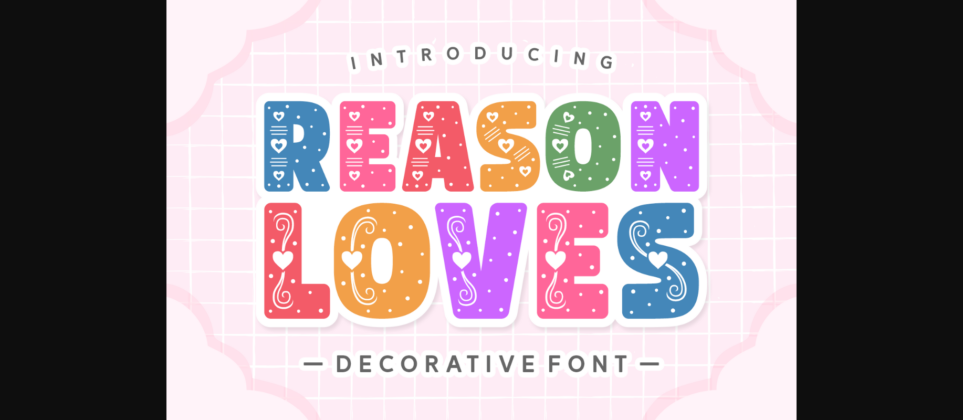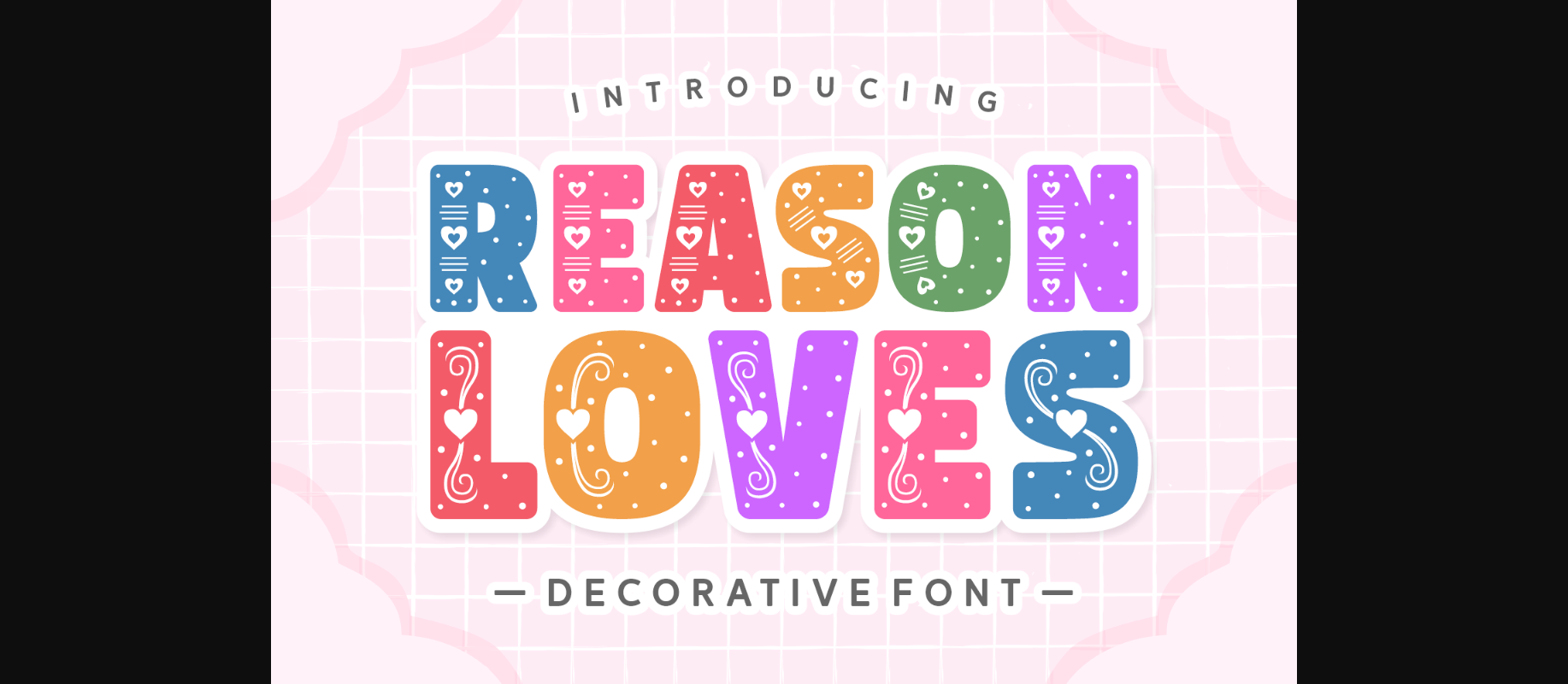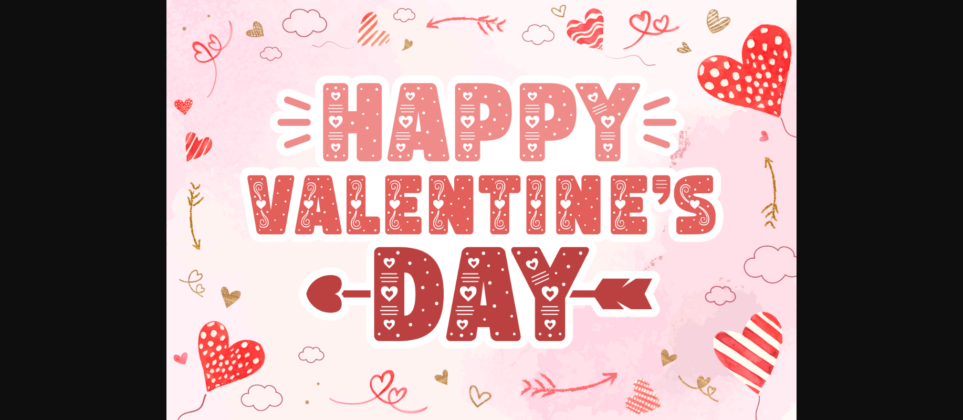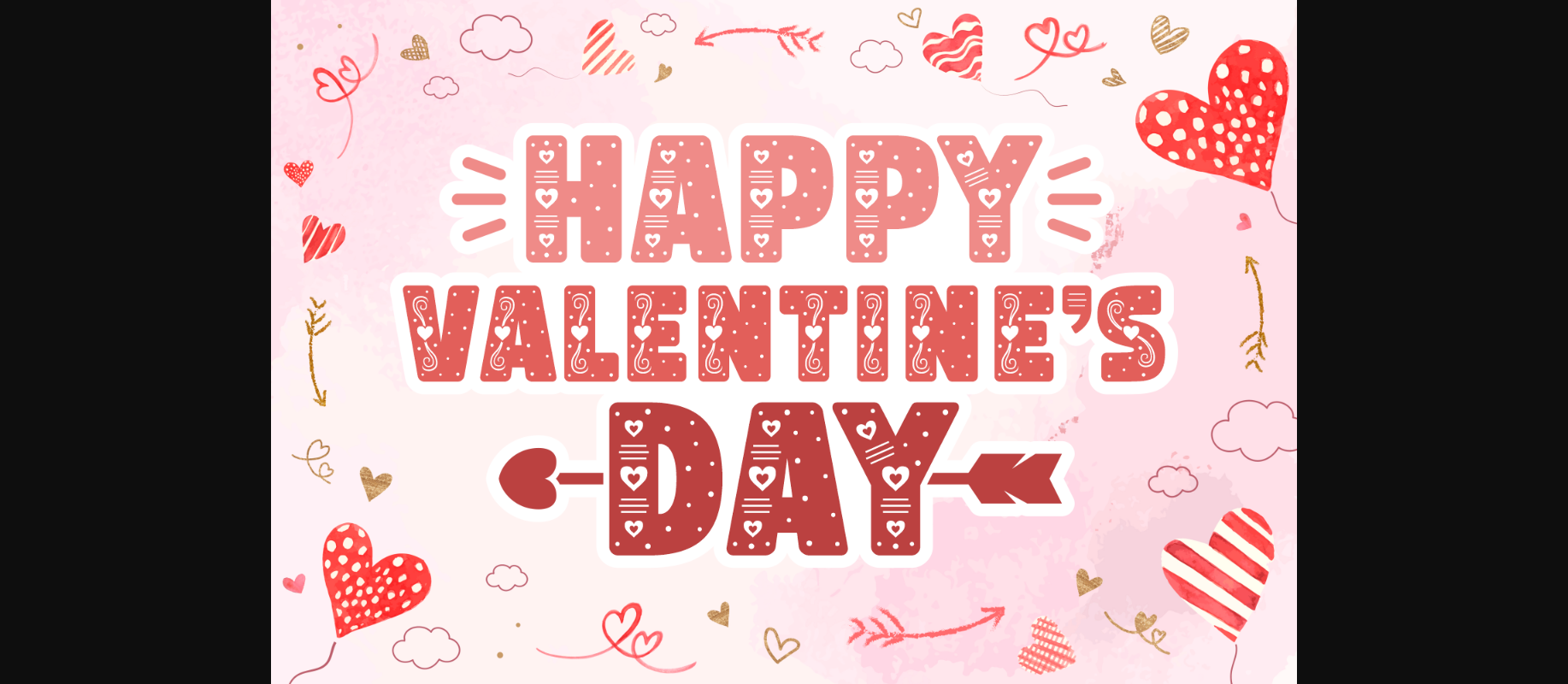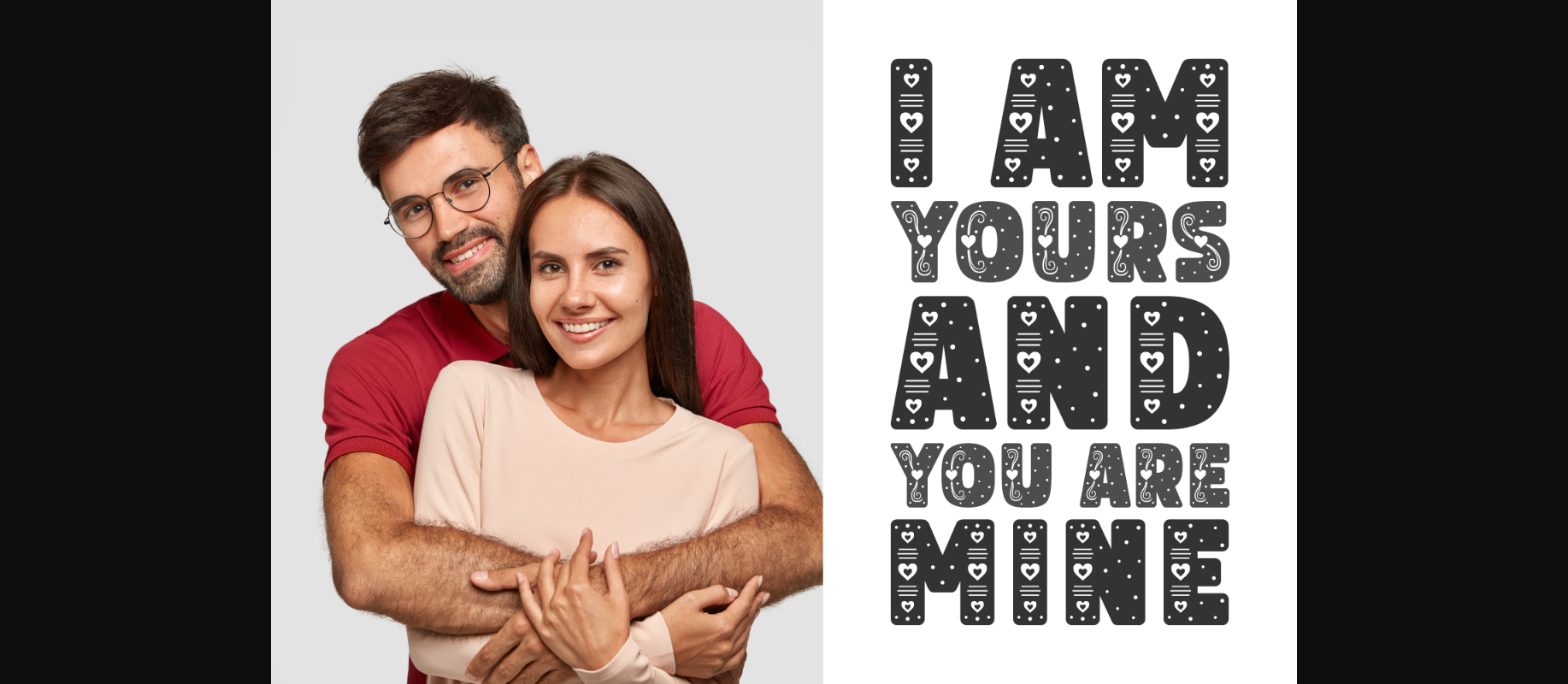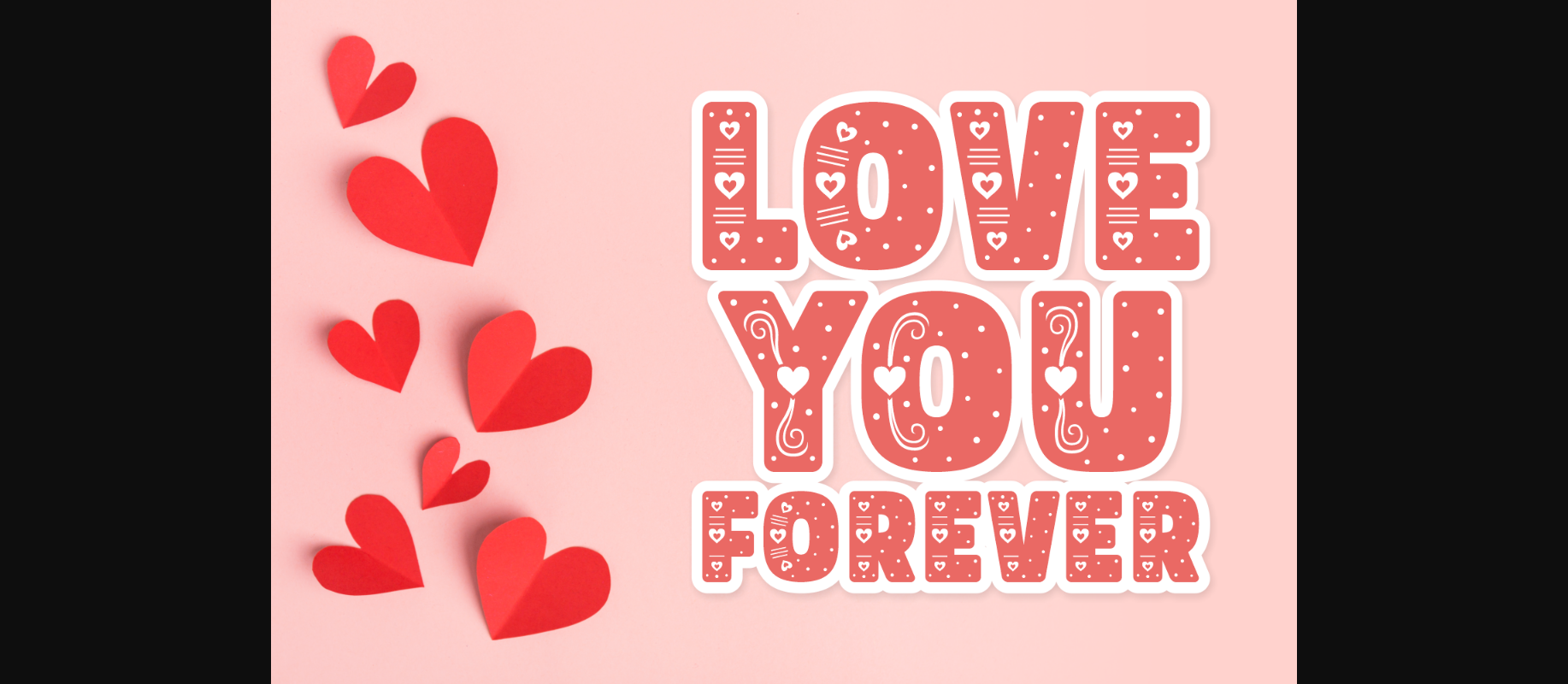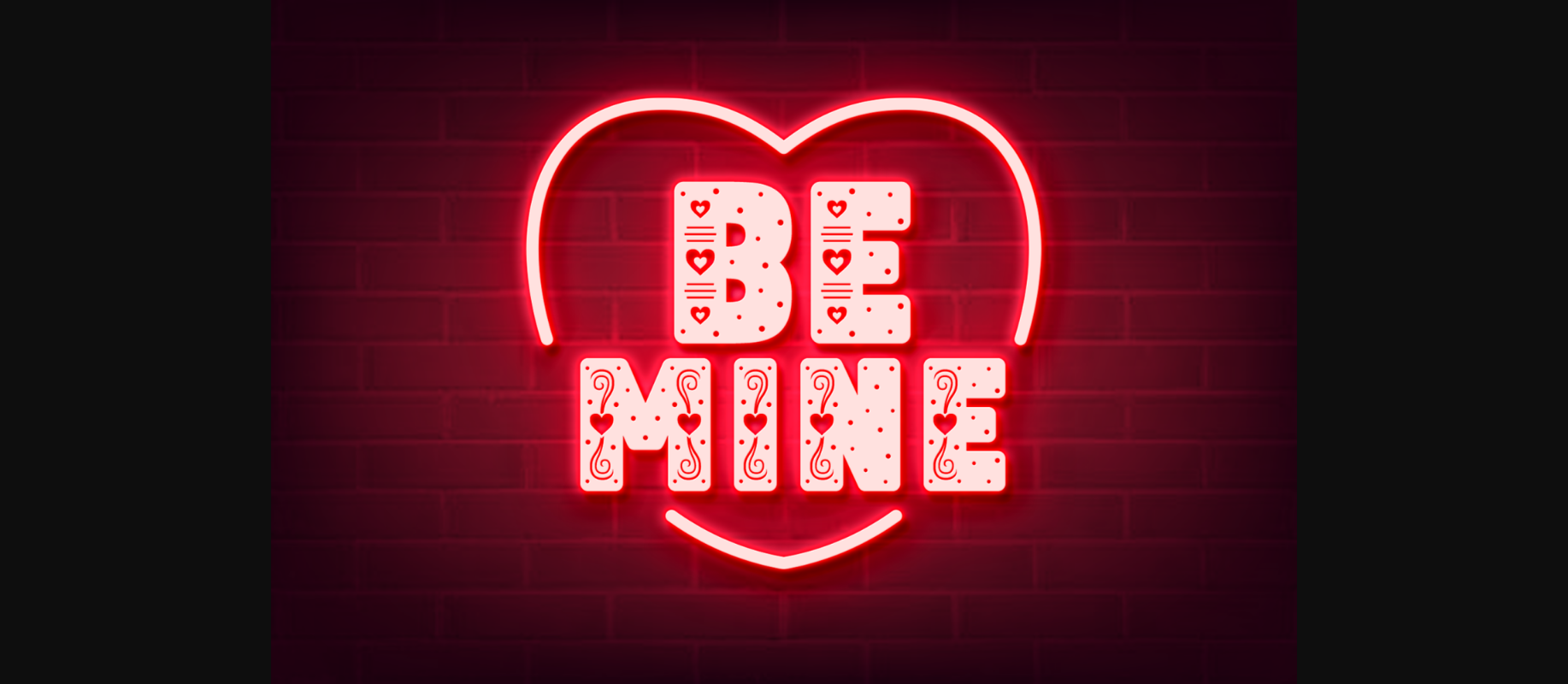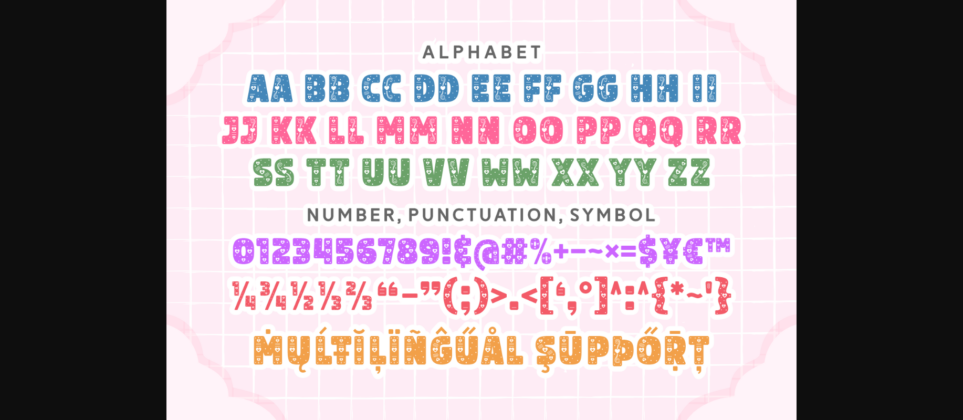
Reason Loves Font
About Reason Loves Font
Reason Loves is a gentle, pure, and stylish decorative font. This neat font has a broad spectrum of applications ranging from greeting cards to presentations and is guaranteed to increase the sense of gracefulness of your projects.